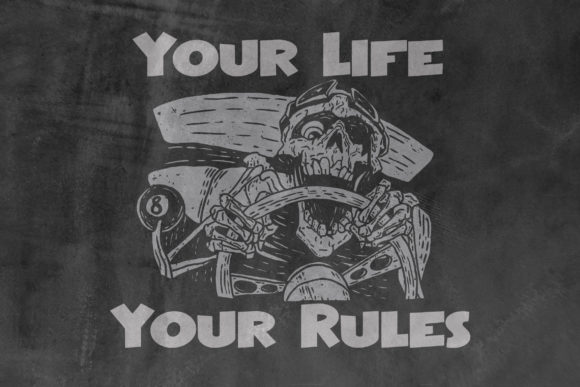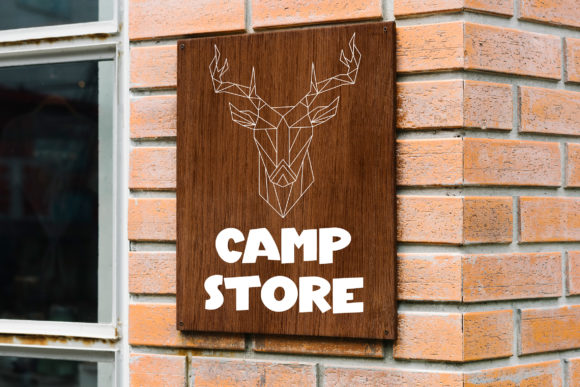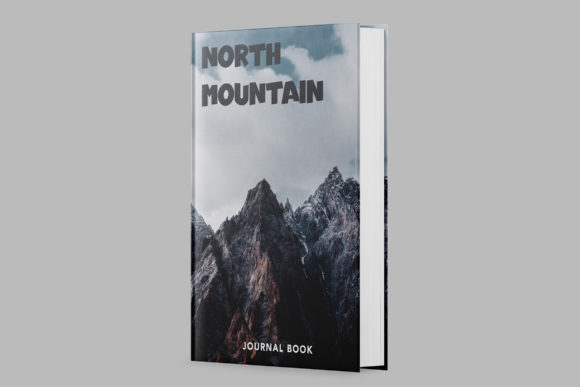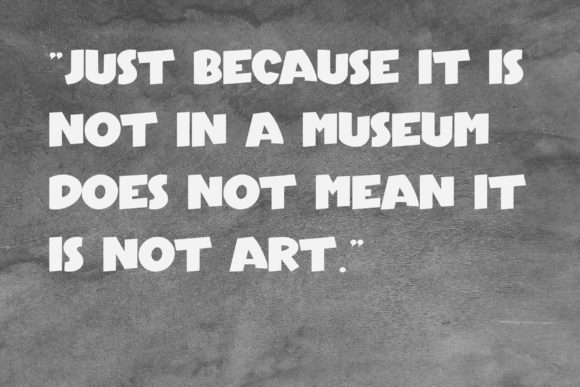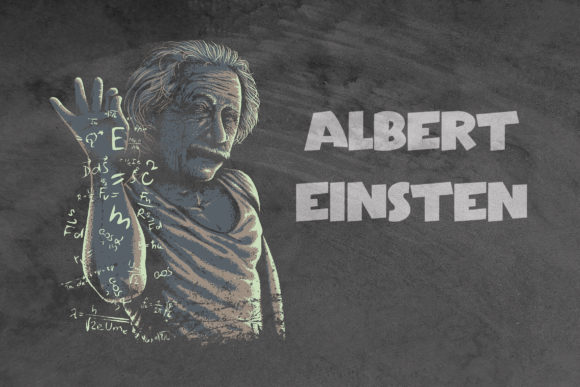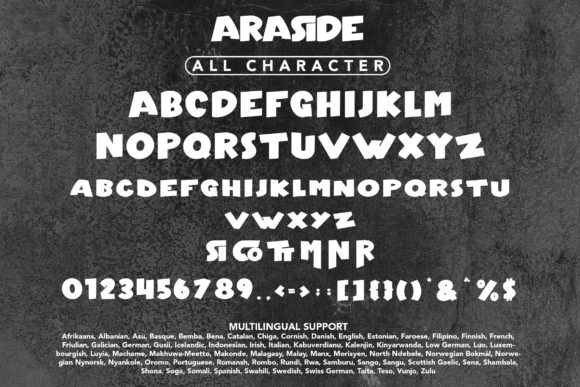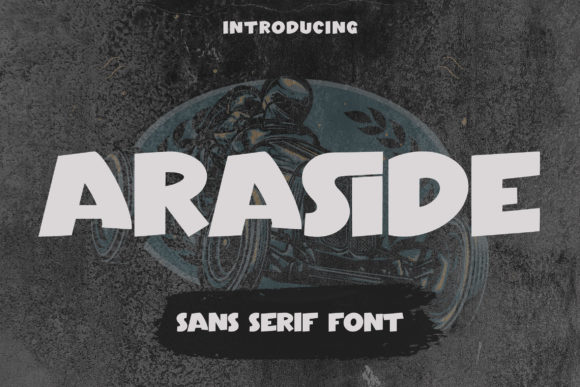
Introducing Araside Font: The Cool, Bold, and Trendy Display Font
Are you tired of using the same old fonts for your designs? Look no further! Araside Font is here to take your creative projects to the next level. This cool, bold, and trendy display font is perfect for cartoon-related designs, children’s games, and any creation that requires a lovely touch.
What Makes Araside Font So Special?
Araside Font is a unique and eye-catching font that is sure to grab attention. Its bold and playful design makes it perfect for designs that require a fun and youthful touch. The font is highly versatile and can be used for a wide range of projects, from children’s books and games to posters, flyers, and social media graphics.
Key Features of Araside Font
- Cool and Trendy Design: Araside Font has a modern and stylish design that is sure to make your designs stand out.
- Bold and Playful: The font’s bold and playful design makes it perfect for designs that require a fun and youthful touch.
- Highly Versatile: Araside Font can be used for a wide range of projects, from children’s books and games to posters, flyers, and social media graphics.
- Easily Readable: Despite its bold design, Araside Font is easily readable, making it perfect for designs that require a clear and concise message.
Use Cases for Araside Font
Araside Font is perfect for a wide range of design projects, including:
- Children’s Books and Games: The font’s playful and youthful design makes it perfect for children’s books and games.
- Cartoon-Related Designs: Araside Font is a great choice for cartoon-related designs, such as character designs, posters, and social media graphics.
- Posters and Flyers: The font’s bold and eye-catching design makes it perfect for posters and flyers that require attention-grabbing headlines.
- Social Media Graphics: Araside Font can be used to create engaging social media graphics, such as Facebook posts, Instagram stories, and Twitter headers.
Why Choose Araside Font?
There are many reasons why you should choose Araside Font for your design projects. Here are a few:
- Unique Design: Araside Font has a unique and eye-catching design that is sure to make your designs stand out.
In conclusion, Araside Font is a cool, bold, and trendy display font that is perfect for designers and crafters who want to add a lovely touch to their designs. Its unique and eye-catching design makes it perfect for a wide range of projects, from children’s books and games to posters, flyers, and social media graphics. With its high-quality design, ease of use, and affordability, Araside Font is a great choice for any designer or crafter looking to take their designs to the next level.